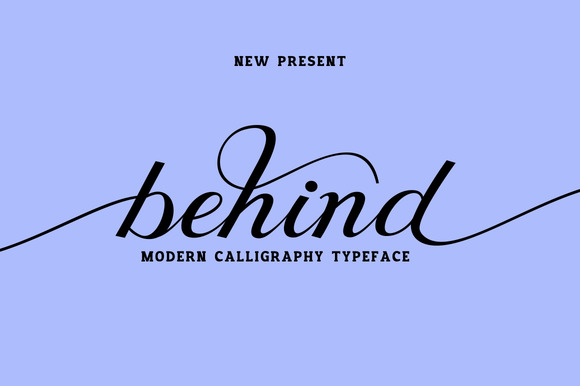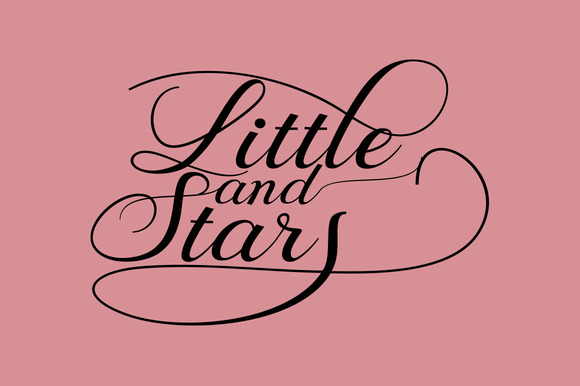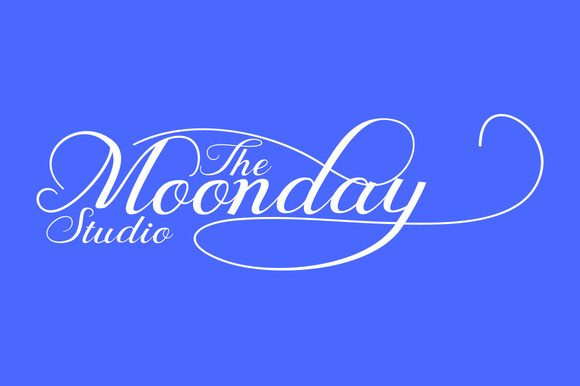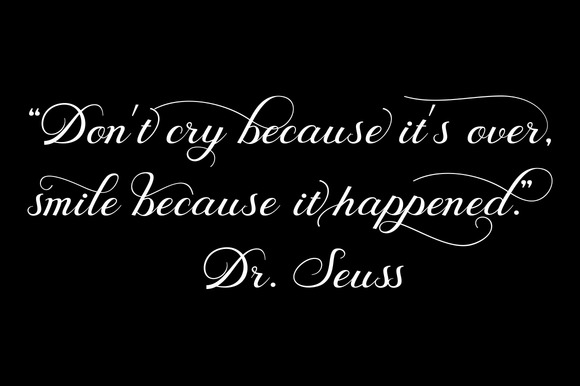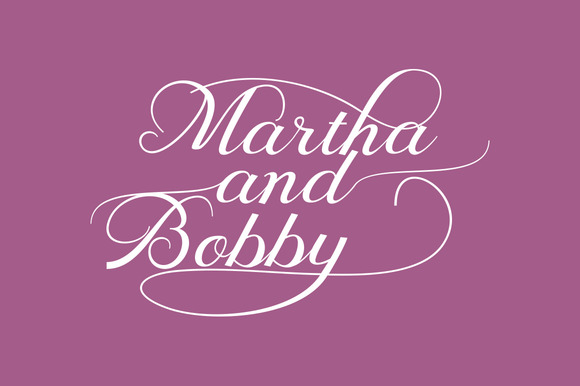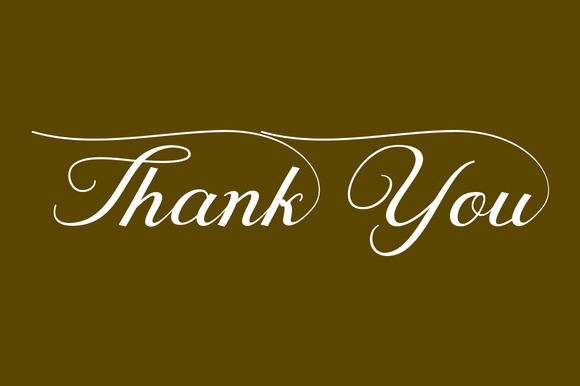
Behind Script Font
About Behind Script Font
The Behind is an elegant hand-drawn script font. It features an adapted modern calligraphy style that creates fancy smooth letters.